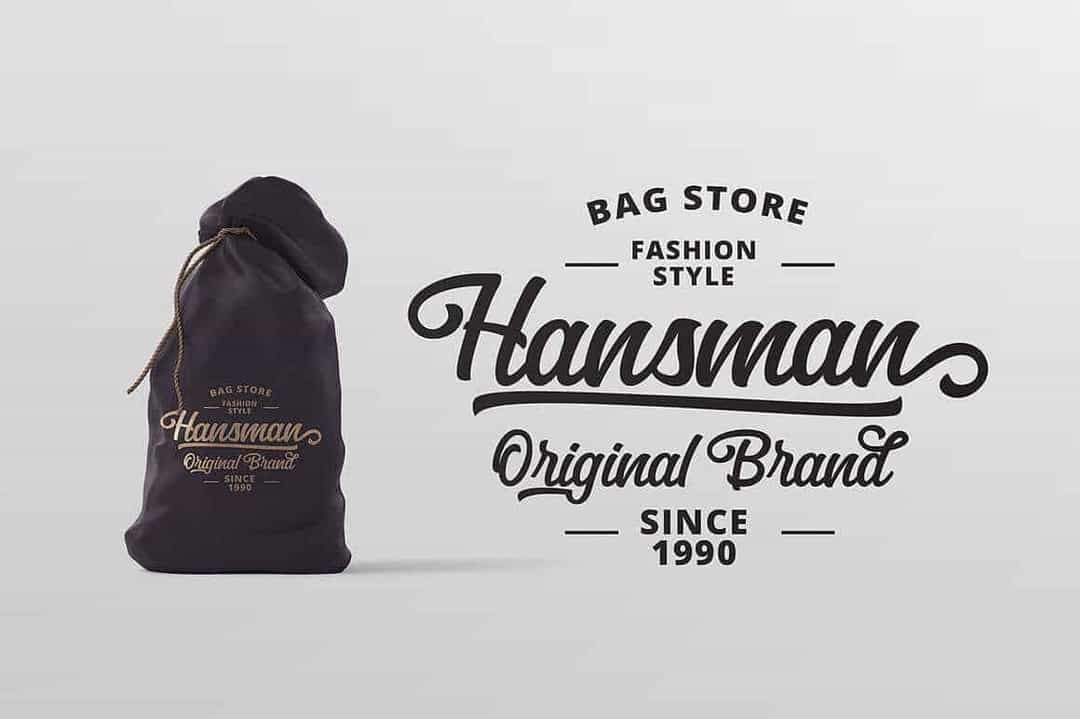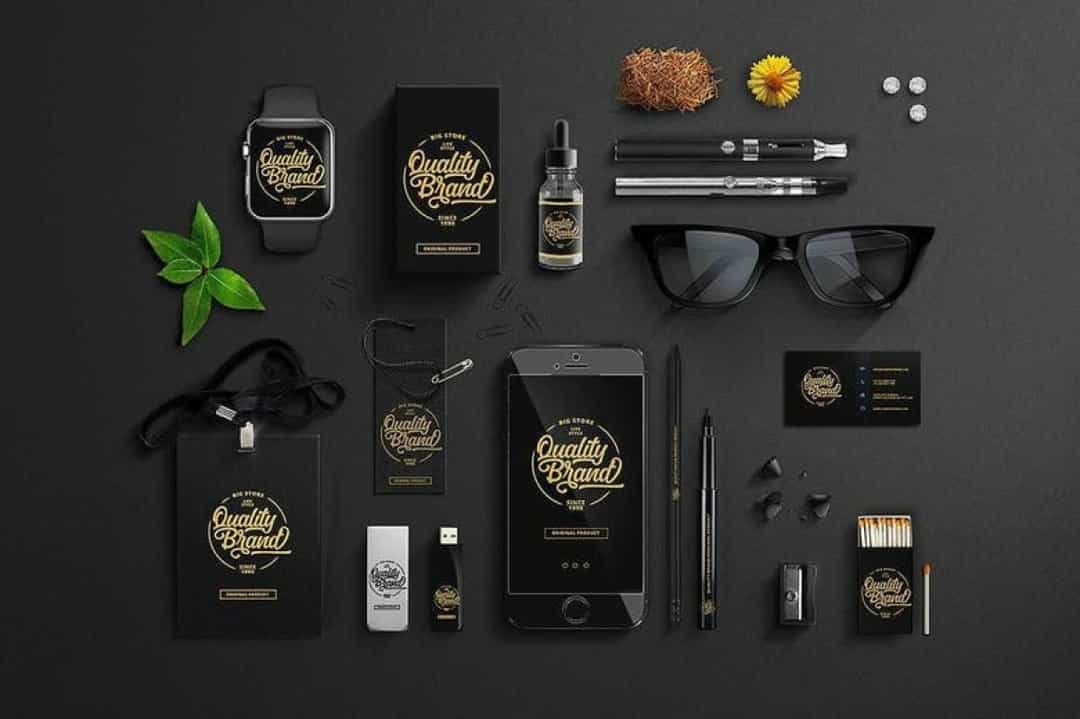
Discover Anghones Script Font, part of the Brush Comic collection—a versatile and unique font perfect for adding a personal touch to your projects. Download it for free and enjoy crafting designs with style, from invitations to social media posts. This font is available exclusively for personal use, giving you the freedom to create without limits. Unlock your creativity with Anghones Script Font today!
Anghones Script is clean typography and free from any congestions and highly legible, it feels pleasant to the skin. They can be used to identify them as logos, badges as packaging materials, headlines, posters, T-shits and other wears, greeting cards, business cards, and wedding invites and among others.